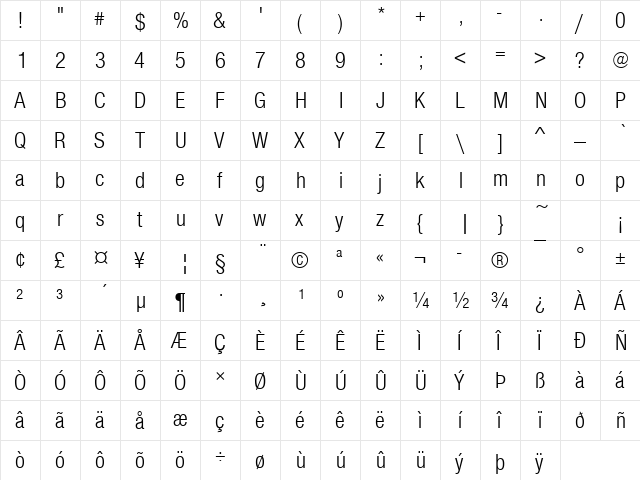
NimbusSanNovTCon Regular Font Preview
NimbusSanNovTCon Regular
Design Context for NimbusSanNovTCon Typeface
NimbusSanNovTCon is a composed and adaptable typeface that performs quietly and consistently across a wide range of design contexts.